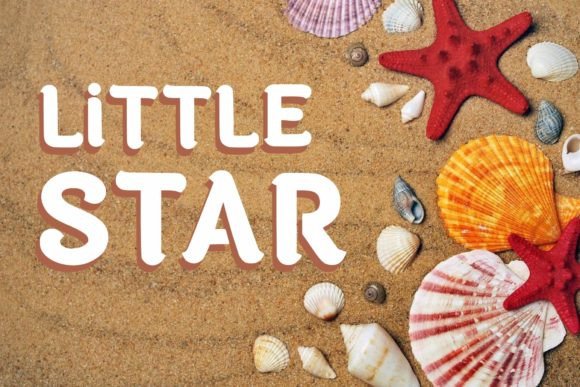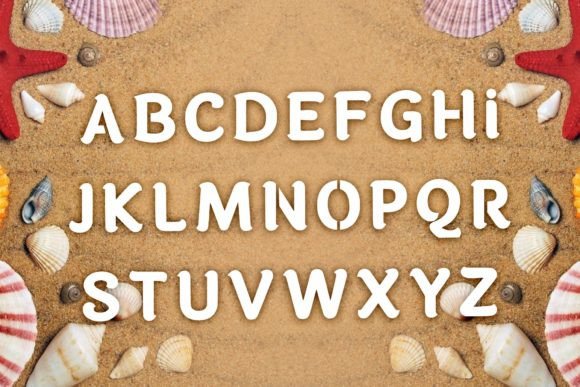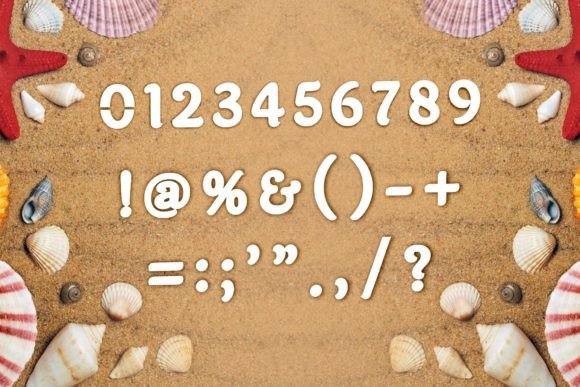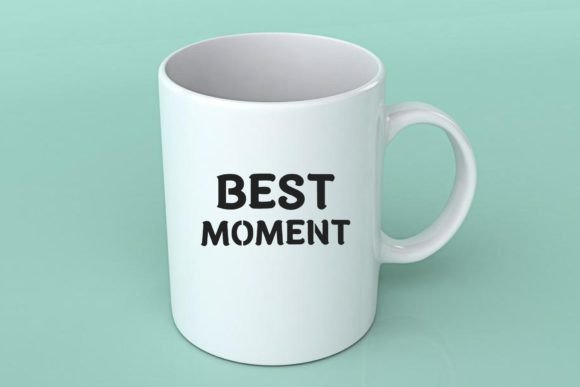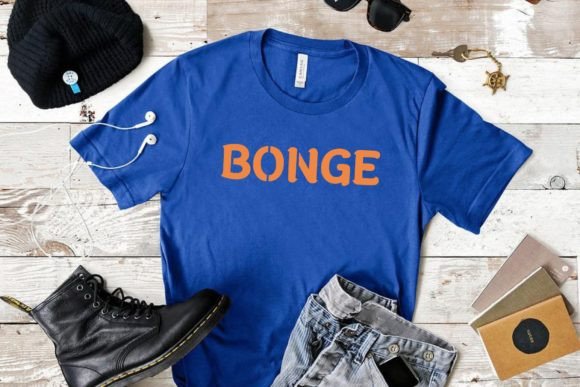
Introduction to Sailor Moon Font
Sailor Moon is a brilliant, fun, and aesthetically pleasing display font, perfect for cheerful topics.
Very suitable for childrenโs themed designs, especially when combined with bright colors .
Key Features of Sailor Moon Font